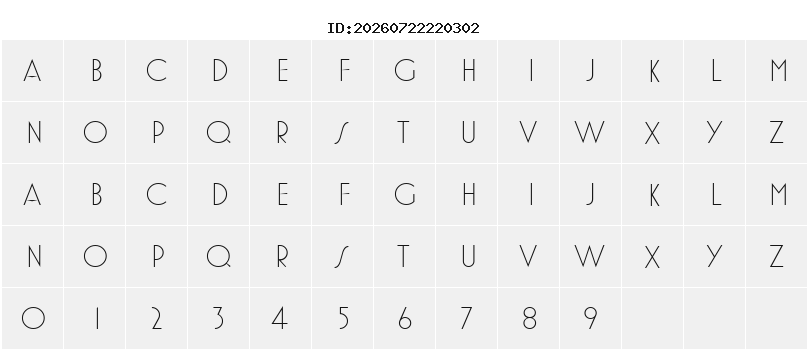
• Font Name: MostraTwoLight
• Designer: Mark Simonson
About MostraTwoLight.ttf
MostraTwoLight.ttf is a modern, elegant sans-serif font designed for ultimate readability and visual harmony. Perfect for branding, headlines, web design, and print materials.